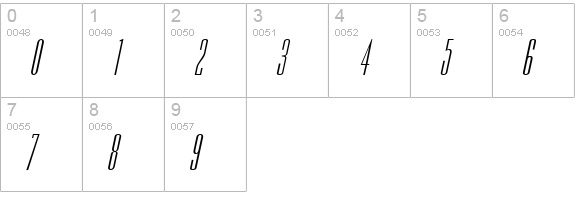
Slim Jim Italic Font Details
Slim Jim Italic is a distinctive, italic variant in the Slim typeface family \xE2\x80\x94 well suited to design and typography projects.
Introducing Slim Jim Italic, a bold and dynamic font that effortlessly combines elegance with attitude. This versatile typeface is perfect for adding a touch of edginess to any design project, whether it be for branding, advertising, or creative headings. With its sleek, slimline letterforms and subtly slanted italics, Slim Jim Italic exudes a sense of modernity and sophistication. Each character is meticulously crafted to ensure legibility and readability, even at smaller point sizes. But what sets Slim Jim Italic apart is its accessibility. This remarkable font is freely available to download at FontsMarket.com, allowing designers and typographers to unleash their creativity without any limitations. Whether you're a professional designer or a passionate hobbyist, this font offers endless possibilities to elevate your work. The clean lines and distinctive curves of Slim Jim Italic lend themselves perfectly to a wide range of design applications. From sleek website headers to eye-catching posters, this font adds a touch of elegance and flair that is sure to captivate any audience. So why settle for ordinary when you can make a statement with Slim Jim Italic? Download this remarkable font today and see how it can transform your designs into works of art. Remember, it's freely available at FontsMarket.com, making it accessible to everyone who seeks to enhance their creative endeavors.